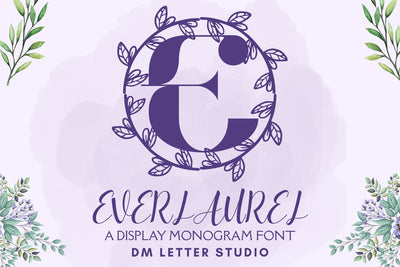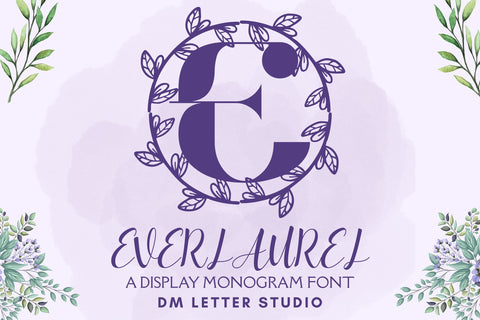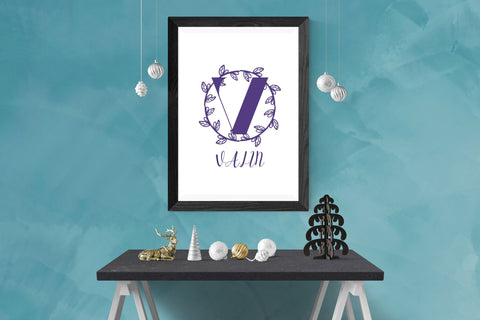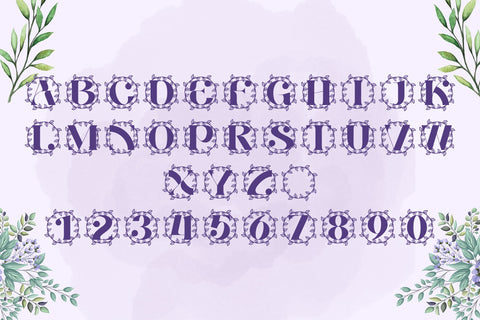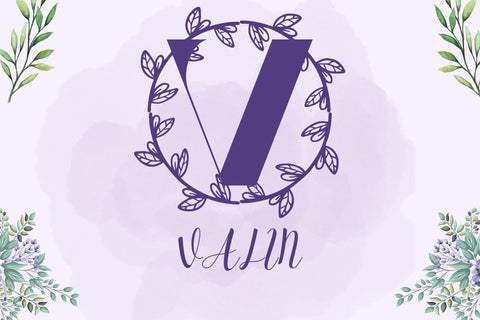
Everlaurel Monogram
Meet Everlaurel, the Monogram Font
Everlaurel Monogram turns simple initials into timeless laurel-inspired emblems that feel classic, calm, and premium. The strokes are smooth and balanced, so letters stay clear at any size. Because counters remain open, tiny tags stay crisp while large signs look elegant and refined. Use it for wedding suites, boutique logos, keepsake gifts, wax seals, stationery, and luxury packaging. As a result, your designs gain a polished botanical charm that feels gift-ready right away.
Why Everlaurel Monogram sells
First, setup is fast in Canva, Photoshop, and Illustrator. Next, the clean outlines cut and print beautifully for foil, emboss, deboss, engraving, laser, vinyl, DTF, and sublimation. Then layouts build quickly because spacing is steady and predictable. Moreover, Everlaurel pairs beautifully with a soft serif or a neat humanist sans, so cohesive collections come together without extra testing. Therefore, your shop can roll out personalized listings and seasonal drops with confidence.
Fast layouts with the Everlaurel Monogram
Start with a generous initial and let white space frame it. After that, add names, dates, or short titles in a simple supporting font. Because Everlaurel holds shape at small sizes, cards, cartons, acrylic signs, and tags print beautifully. In addition, the proportions love wreath frames, laurel rings, oval borders, and minimal line accents, so full sets come together in minutes. Finally, save palette pairs like sage & ivory, champagne & charcoal, navy & pearl, or cocoa & cream to repeat across product lines.
Creative uses and quick wins
- Logo seals, place cards, and certificate badges
- Wax seals, ribbon tags, and keepsake boxes
- Invitation covers, menu headings, and table numbers
- Favor stickers, tissue labels, and thank-you notes
- Curves tuned for foil, letterpress, engraving, laser, vinyl, DTF, and sublimation
Design tips for Everlaurel Monogram
Keep copy short and let the initial lead. Also, add a fine inner stroke or a soft shadow to create depth on light backgrounds. For texture, try linen stocks, vellum wraps, or pearl papers. Finally, export at 300 DPI for print and at 2× size for web, so edges stay smooth everywhere.